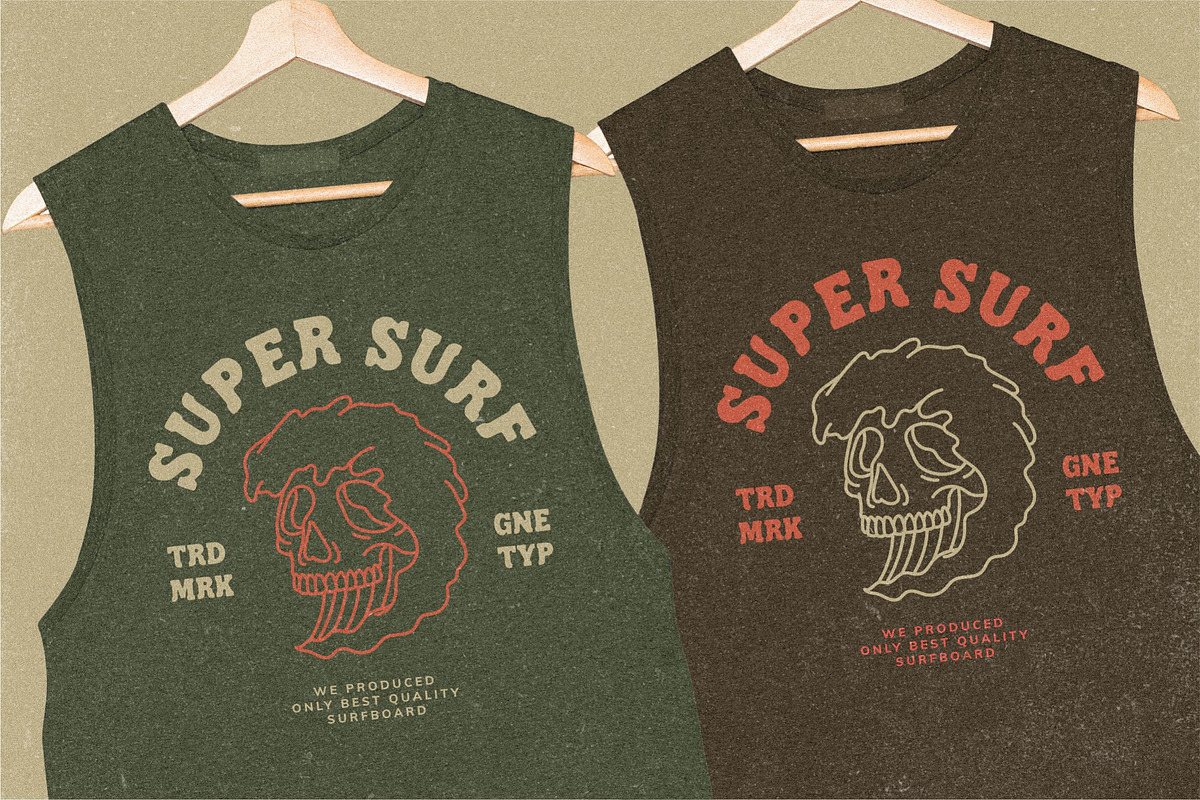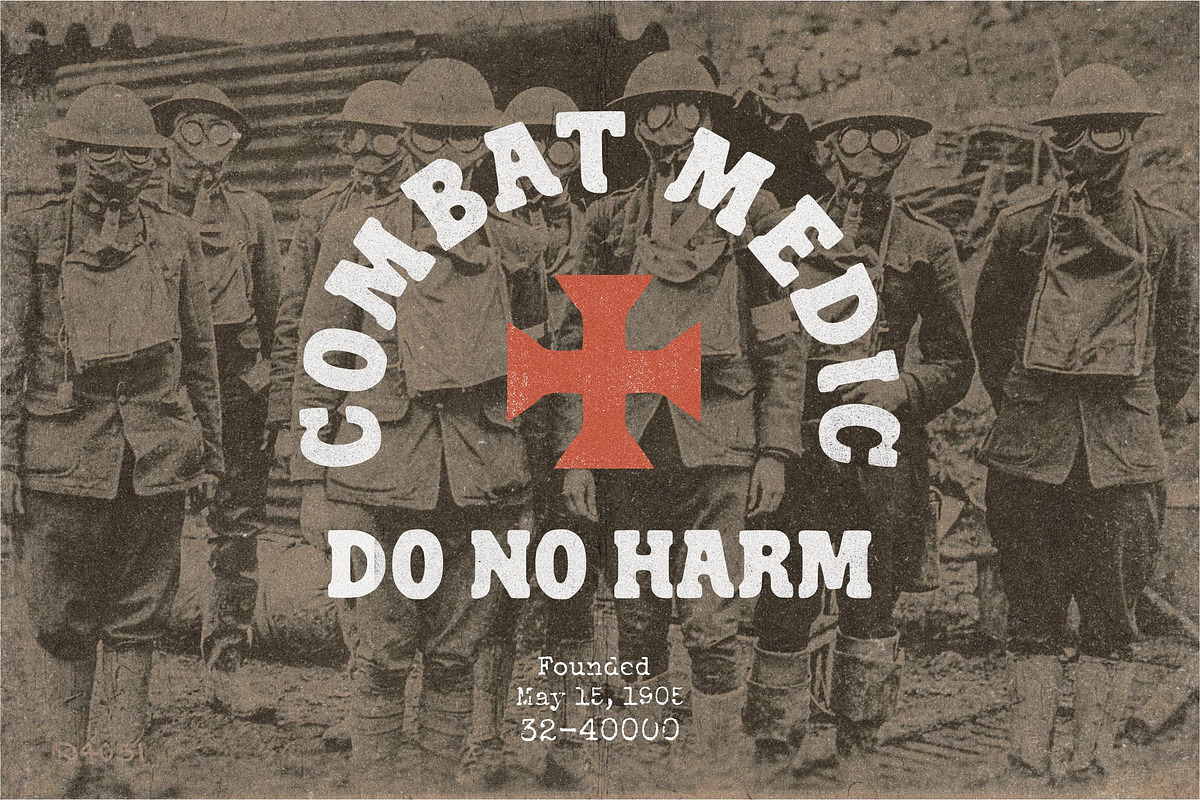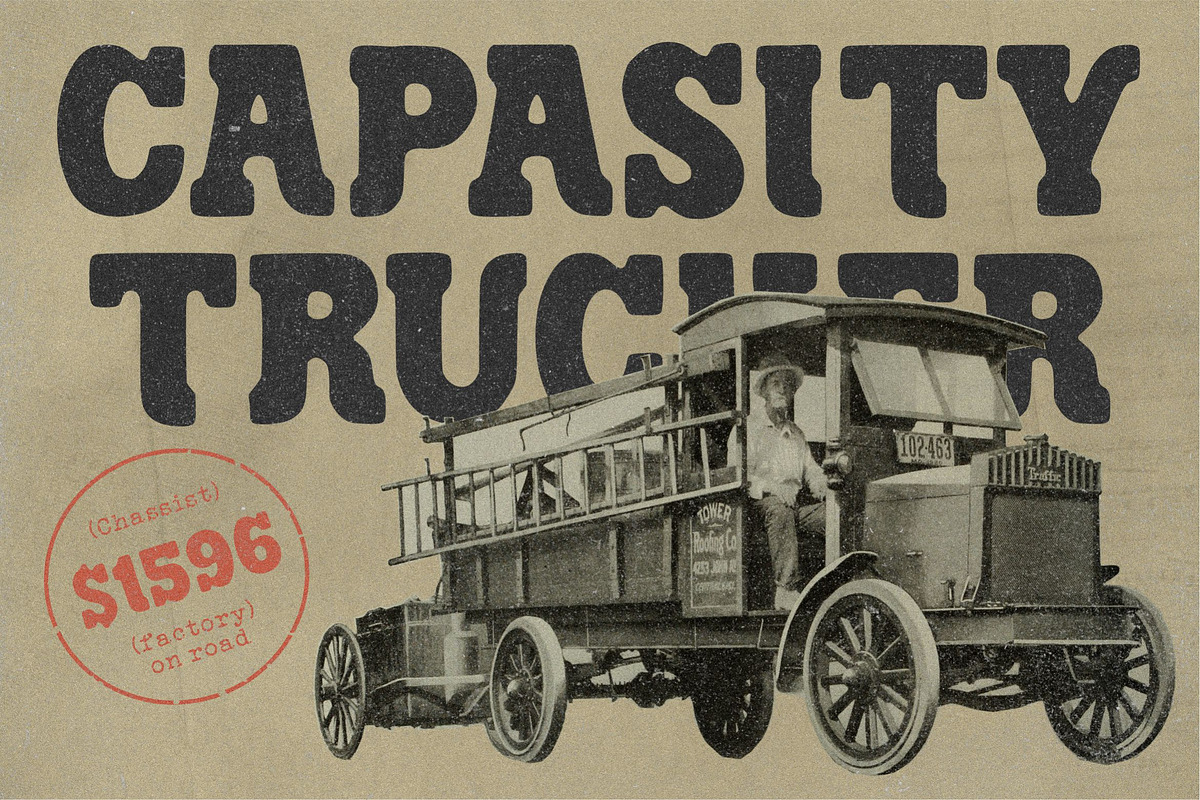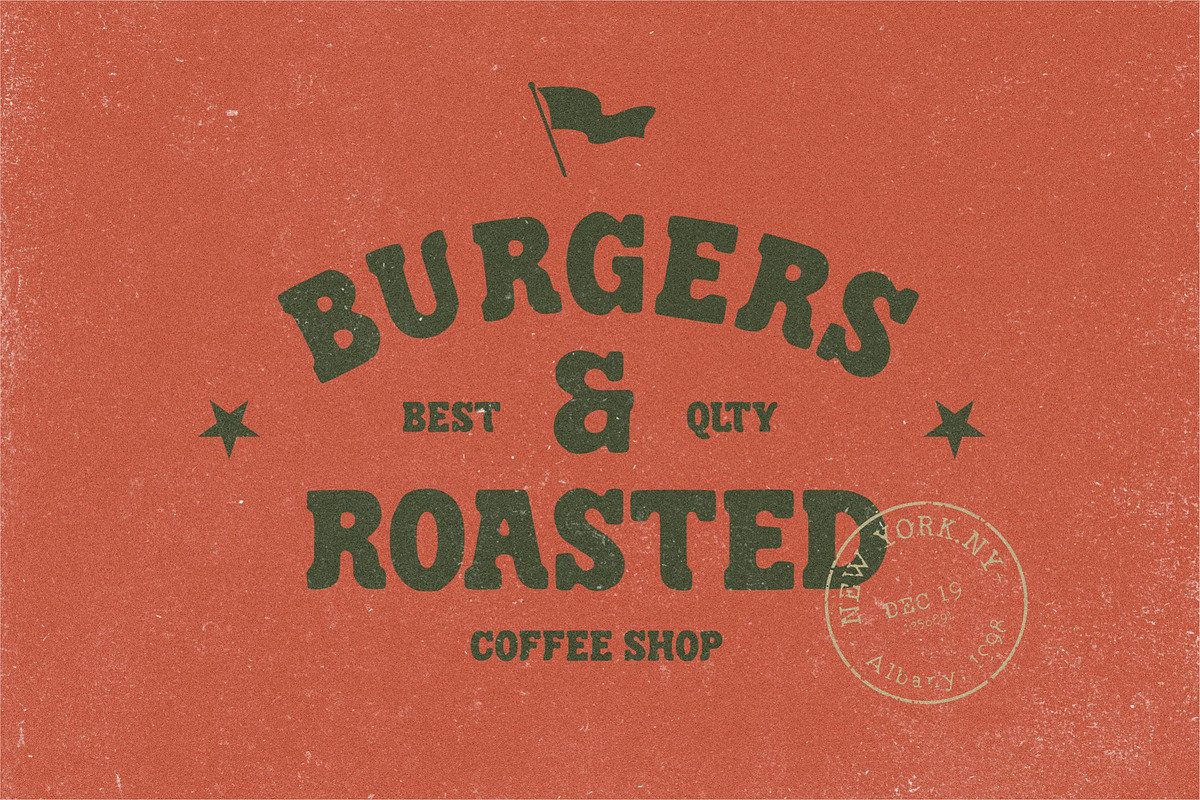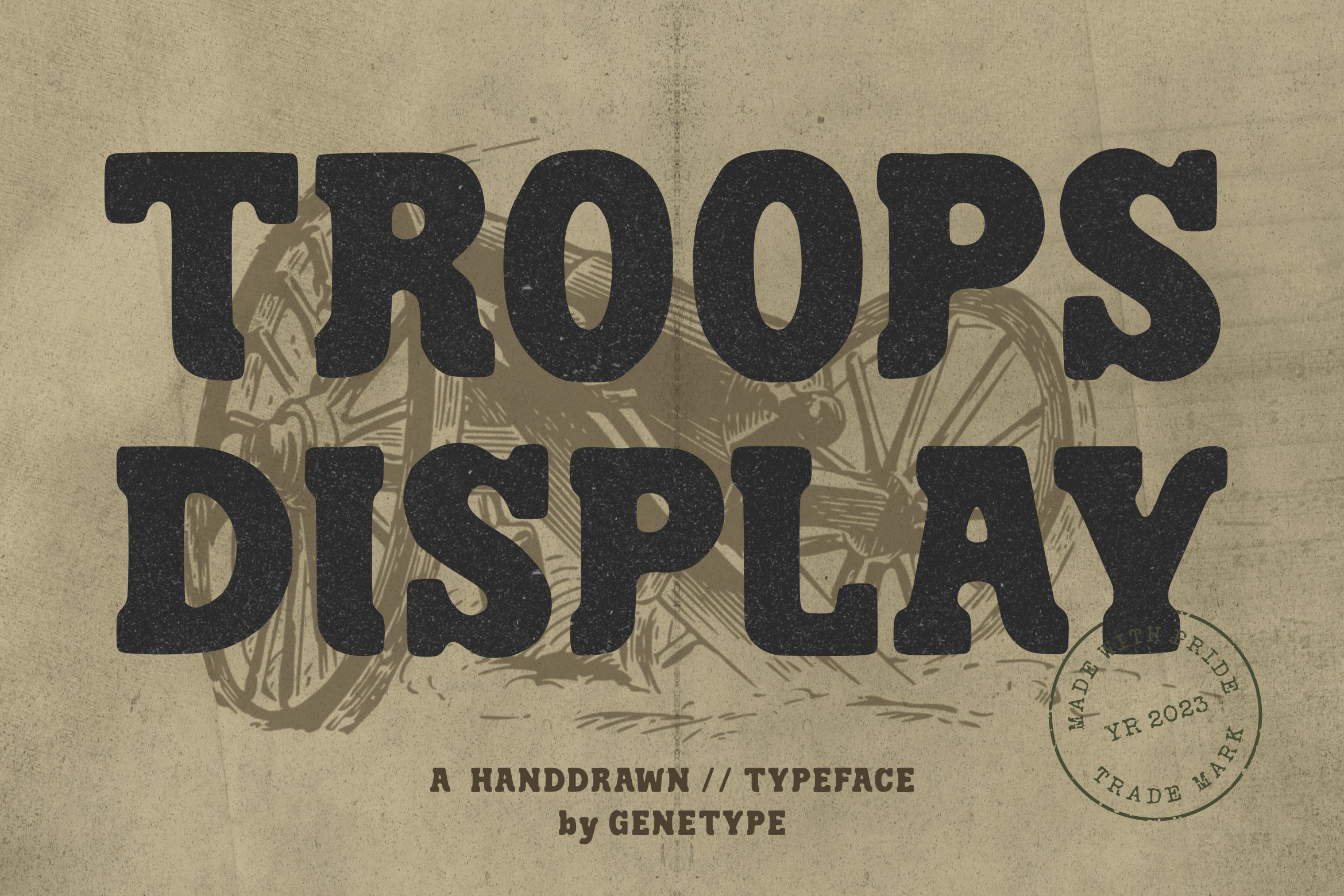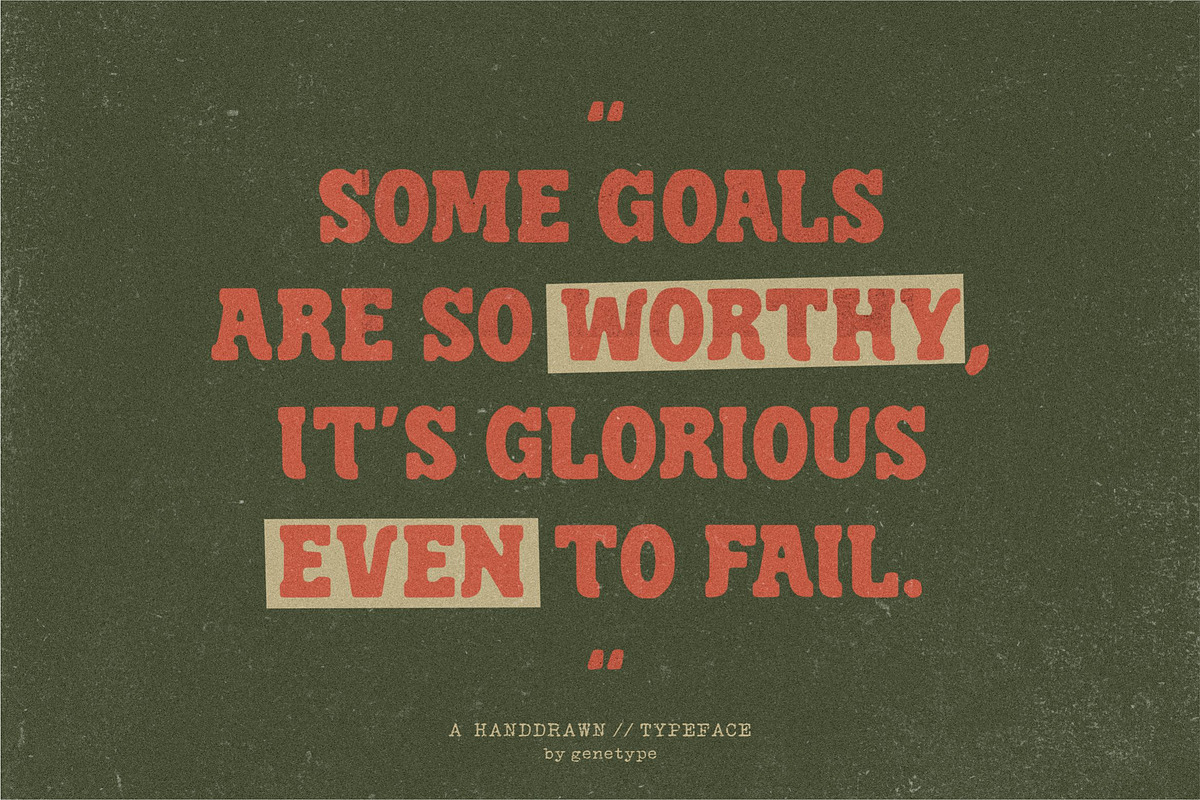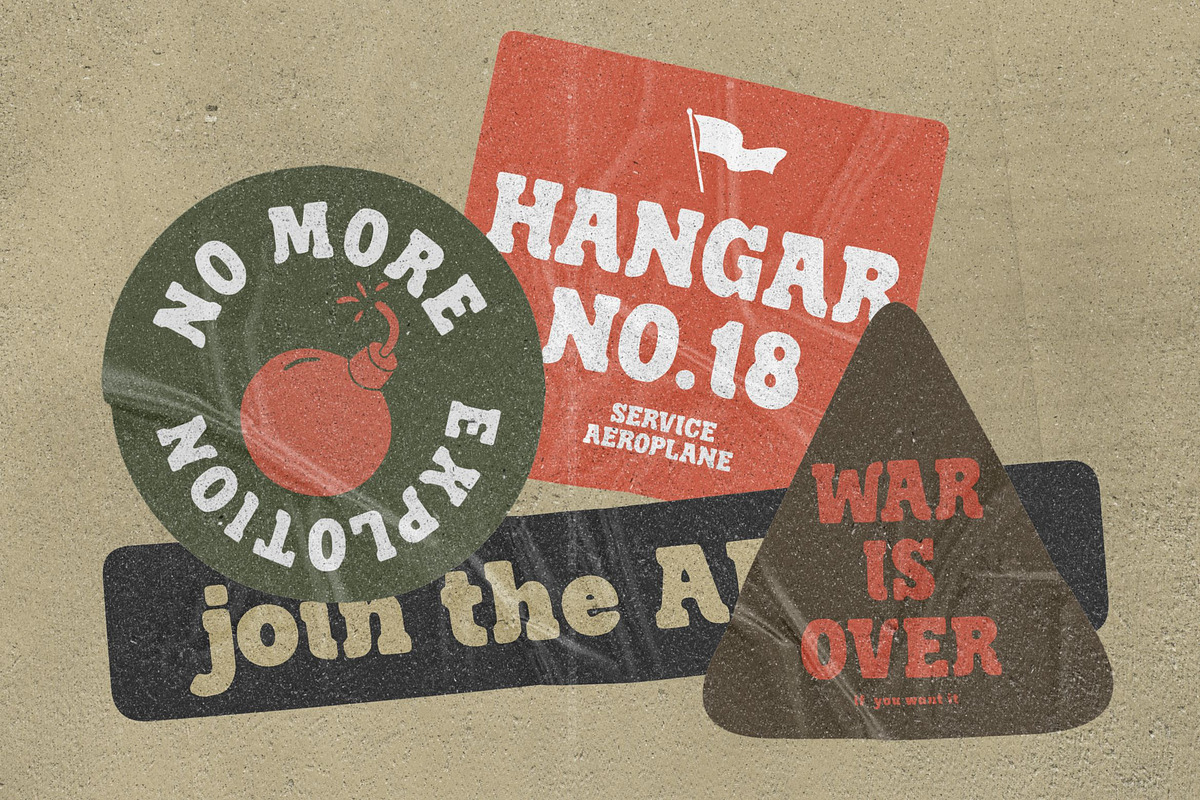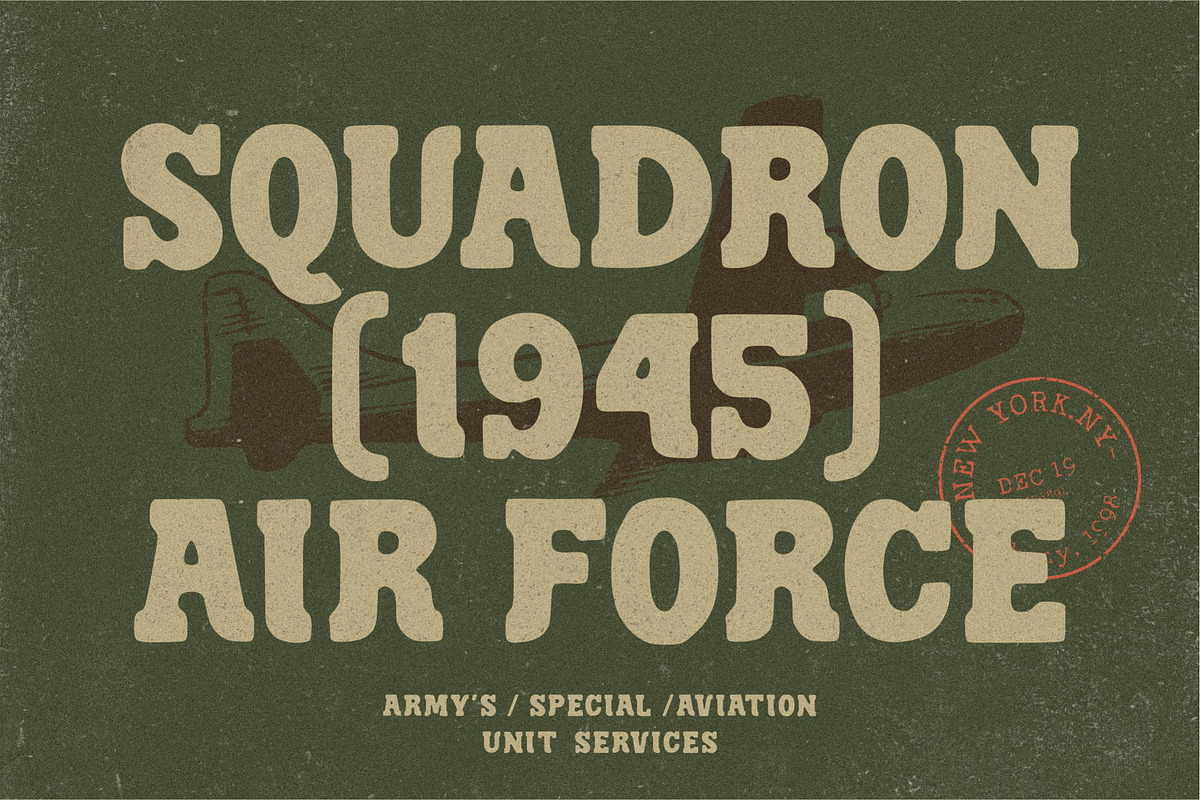
Troops - Vintage Display Font
Introducing Troops Display Typeface: Where Vintage Meets Bold! Unveil the power of Troops Display – a font that seamlessly fuses vintage aesthetics with a bold, modern twist. Inspired by the rugged charm of the past, this slab serif typeface exudes strength and character in every letterform. From striking headlines to impactful branding, Troops Display commands attention with its rough lines and distinctive serifs. Whether you're reviving a classic look or adding a touch of timeless flair, Troops Display is your go-to choice for designs that stand the test of time. Embrace the heritage of typography – explore Troops Display and let your creativity make a lasting mark!